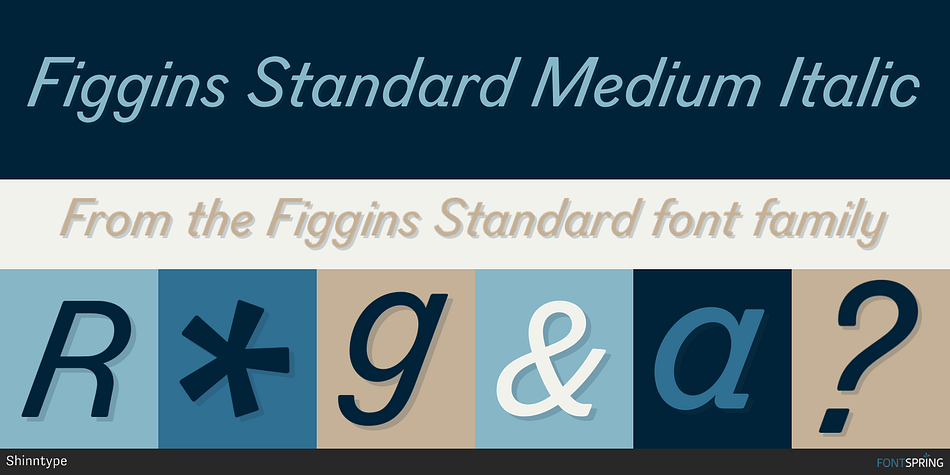
Designed by Nick Shinn, Figgins Standard is a sans serif font family. This typeface has thirteen styles and was published by Shinntype.
Figgins Standard Medium Italic
To meet the burgeoning demands of commerce, type founders in 1830s London introduced a plethora of new fonts which abandoned the traditional nib-informed model. Most radical were bold, capital-only designs with almost no stroke contrast, stripped bare of serifs. To all intents and purposes these minimal expressions of utility were identical to 20th century functionalism. Recontextualizing one of the original sans fonts, Shinn offers an alternative proposition to the myth of modernism.